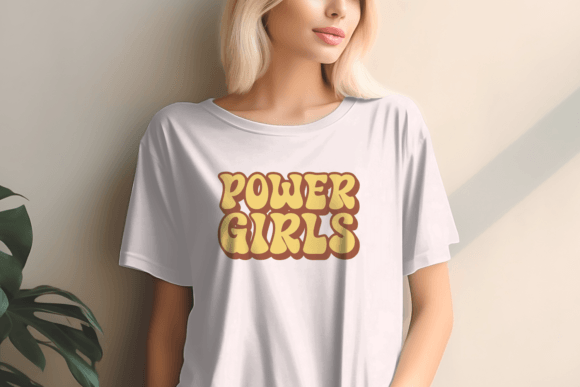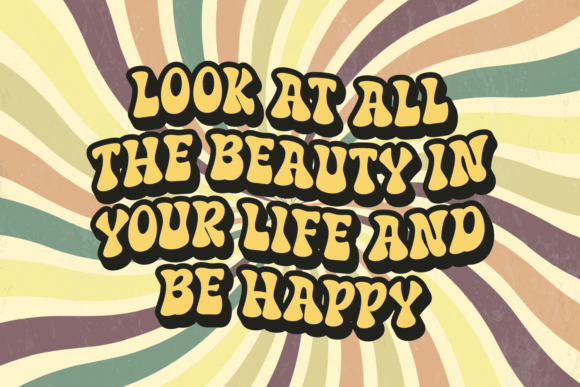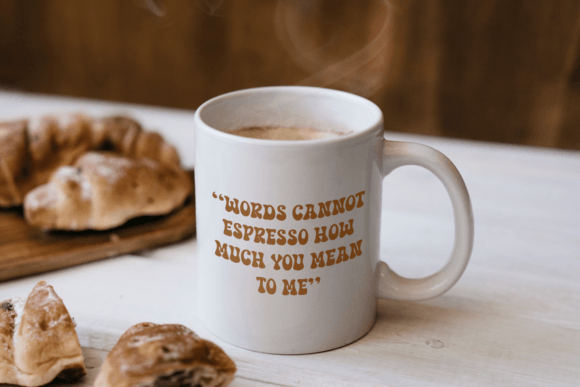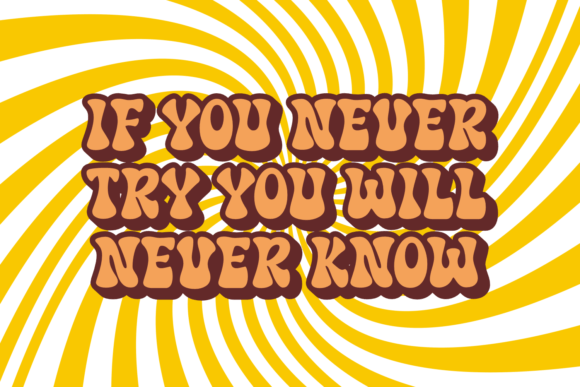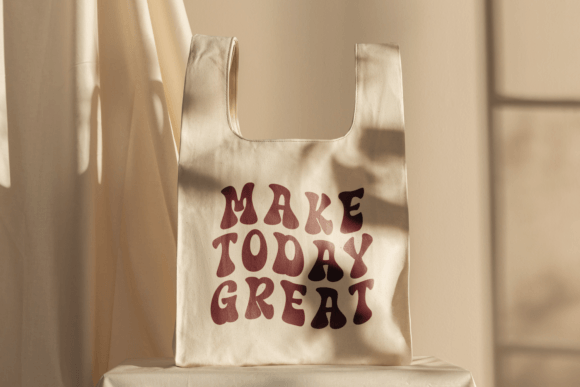
Introducing Cocho Retro Font: The Groovy Display Font You Need!
Are you tired of using the same old fonts in your designs? Do you want to add a touch of nostalgia and playfulness to your creative projects? Look no further than Cocho Retro Font, an excellent retro-style display font that’s sure to take your designs to the highest level!
What is Cocho Retro Font?
Cocho Retro Font is a fun and beautiful typeface that’s perfect for designers and crafters who want to add a vintage vibe to their work. This stunning font is inspired by the classic designs of the 60s and 70s, with bold lines, curvaceous shapes, and a dash of playfulness. Whether you’re working on a logo, a poster, or a digital project, Cocho Retro Font is sure to make your designs stand out from the crowd.
Key Features of Cocho Retro Font
- Retro-style design: Cocho Retro Font boasts a unique and stylish design that’s reminiscent of the good old days. Its bold lines, curvaceous shapes, and distinctive letterforms make it a true showstopper.
- Display font: This font is specifically designed for display purposes, making it perfect for headlines, titles, and other attention-grabbing elements in your designs.
- Fun and playful: Cocho Retro Font has a fun and playful vibe that’s sure to add a touch of personality to your designs. It’s perfect for projects that require a bit of whimsy and creativity.
Why Use Cocho Retro Font?
So, why should you use Cocho Retro Font in your designs? Here are just a few reasons:
- Add a touch of nostalgia: Cocho Retro Font is perfect for designers who want to add a touch of nostalgia to their work. Its retro-style design is sure to evoke memories of the good old days.
- Stand out from the crowd: With Cocho Retro Font, you can create designs that stand out from the crowd. Its unique and stylish design is sure to grab attention and make your designs memorable.
- Perfect for creative projects: Cocho Retro Font is perfect for creative projects that require a bit of personality and whimsy. Whether you’re working on a logo, a poster, or a digital project, this font is sure to add a touch of fun and playfulness.
Here are a few tips and tricks to help you get the most out of Cocho Retro Font:
- Use it for headlines and titles: Cocho Retro Font is perfect for headlines and titles, where its bold and playful design can really shine.
- Experiment with colors: Cocho Retro Font looks great in bold, bright colors. Experiment with different colors to find the one that works best for your design.
- Pair it with other fonts: Cocho Retro Font can be paired with other fonts to create a unique and stylish design. Try pairing it with a sans-serif font for a fun and playful look.
Cocho Retro Font is an excellent retro-style display font that’s perfect for designers and crafters who want to add a touch of nostalgia and playfulness to their work. With its bold lines, curvaceous shapes, and distinctive letterforms, this font is sure to make your designs stand out from the crowd. So why wait? Download Cocho Retro Font today and start creating groovy designs that will take your projects to the highest level!